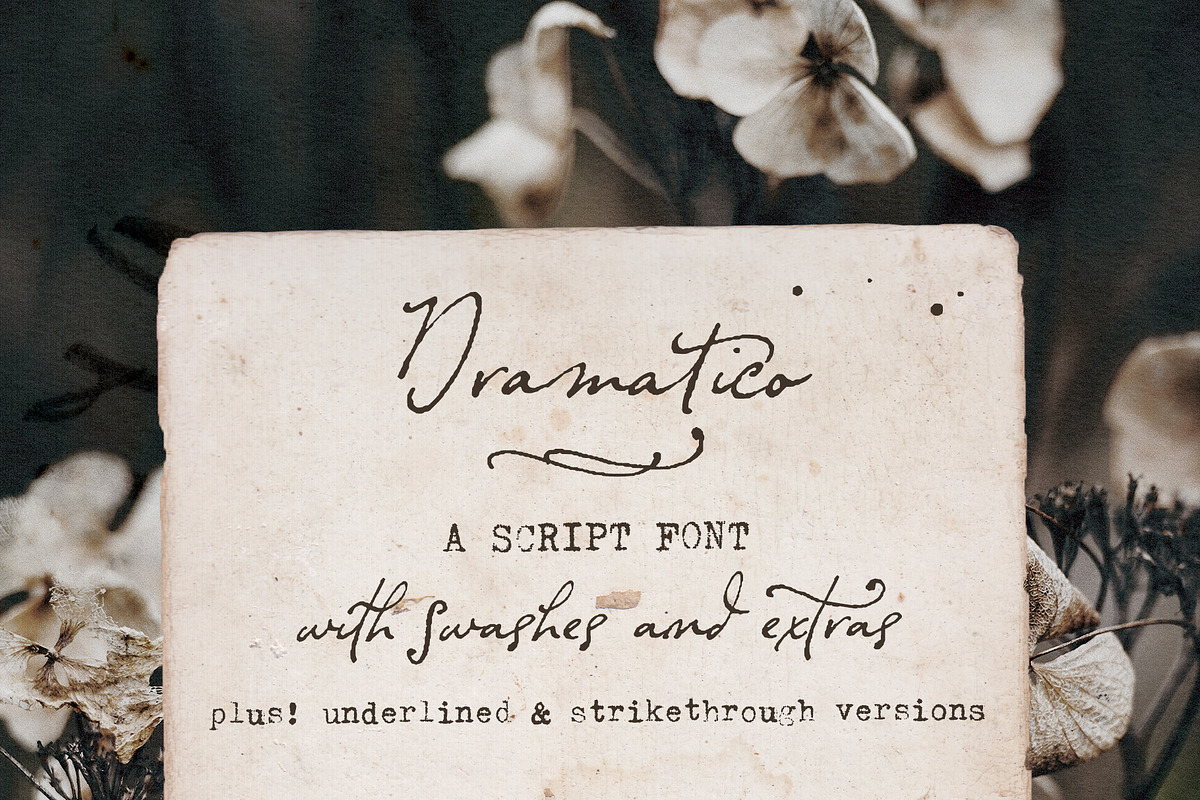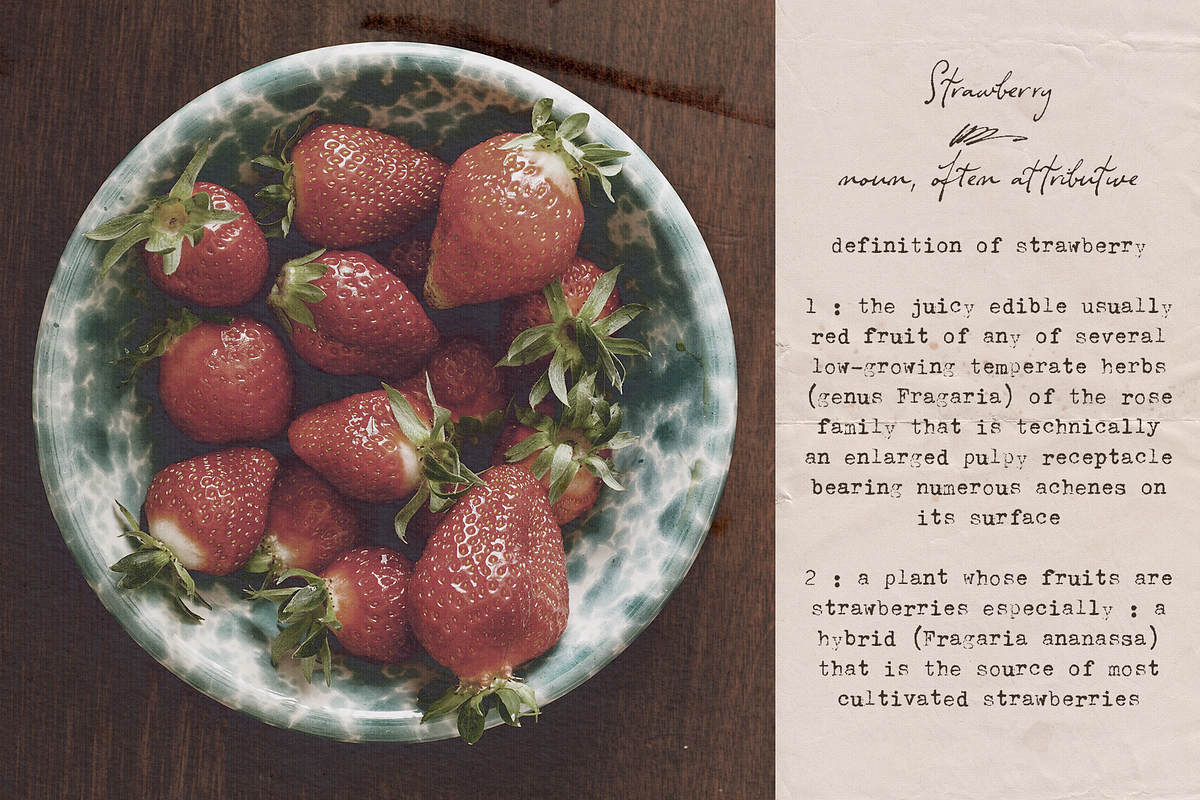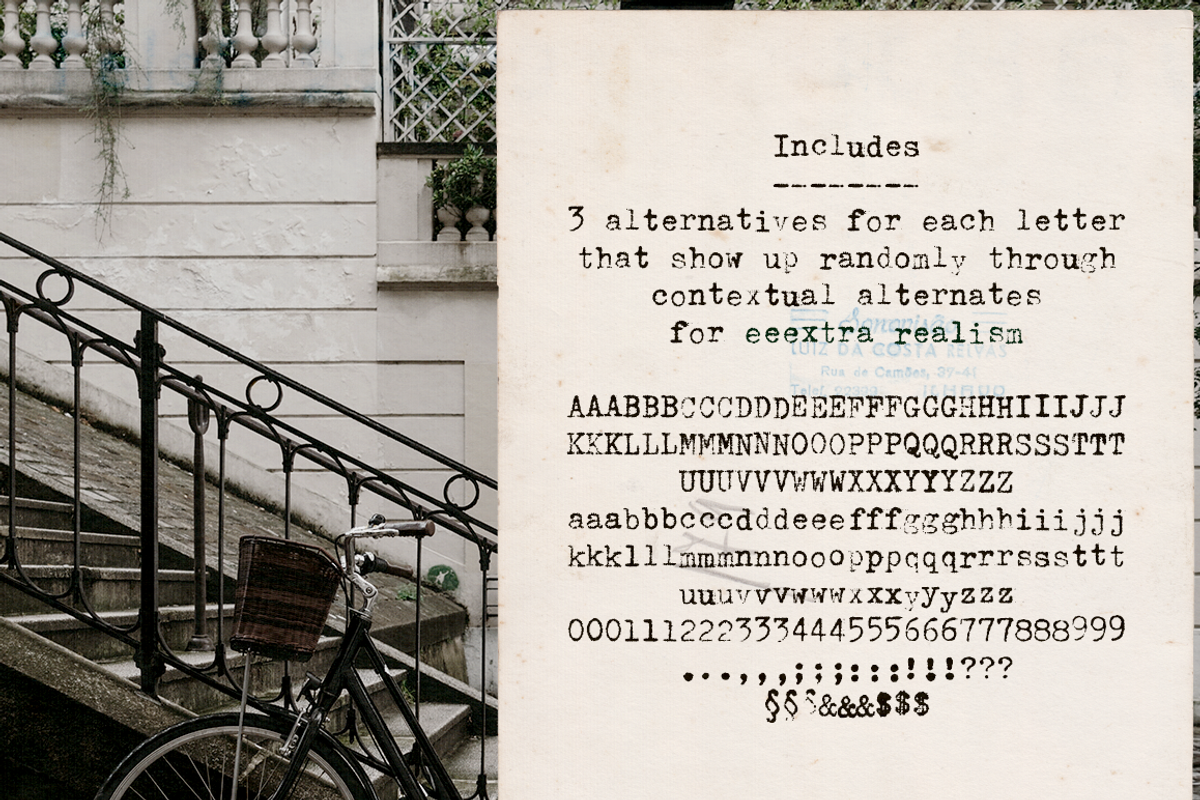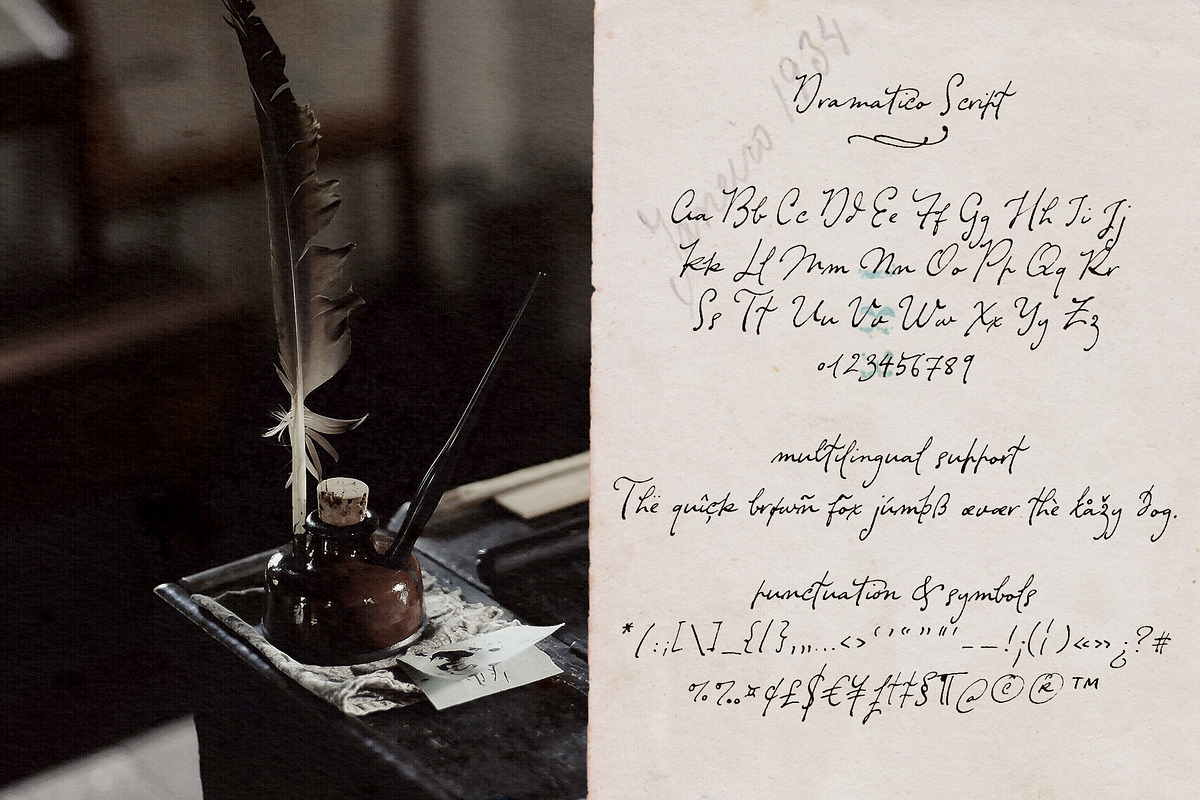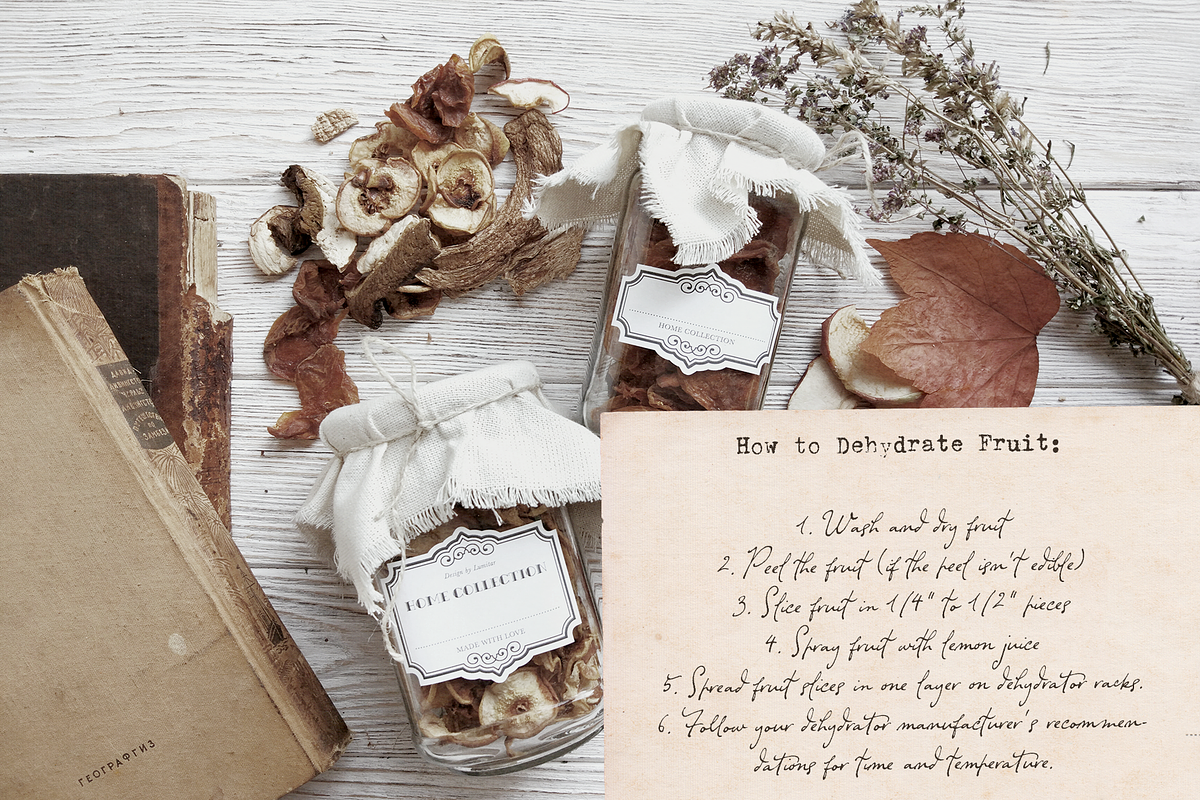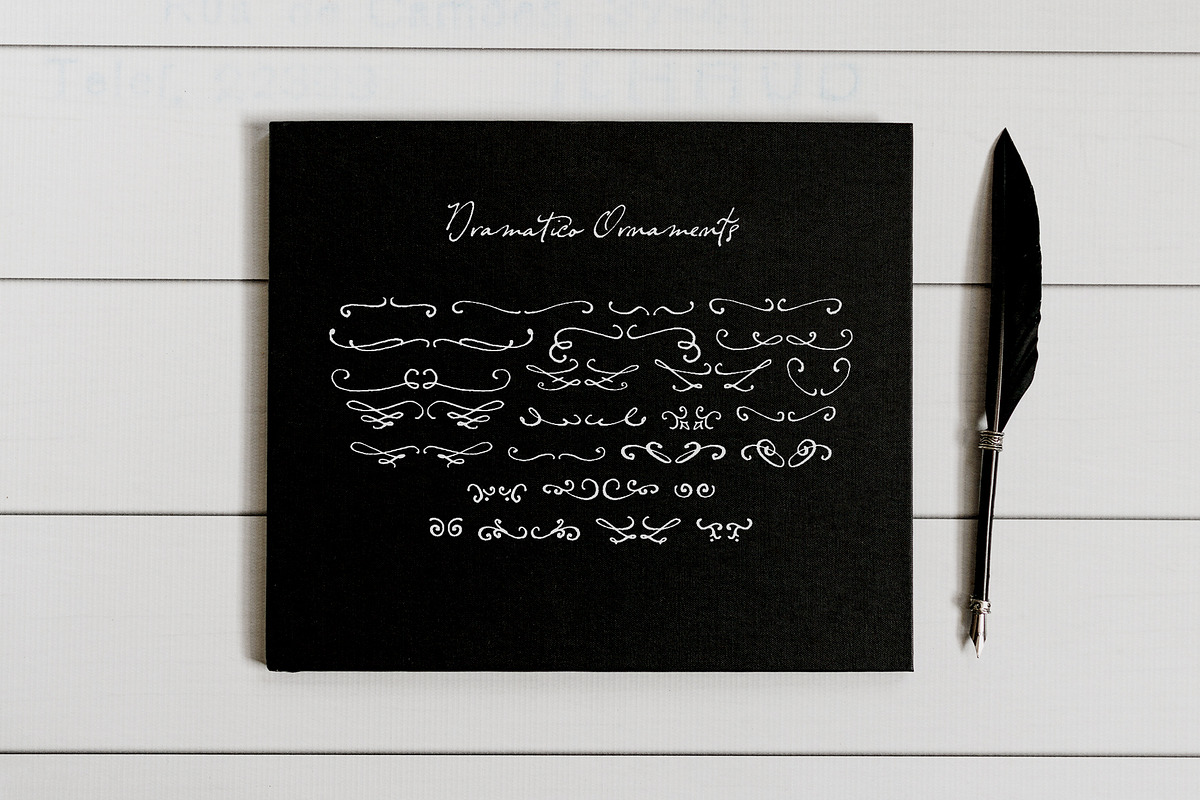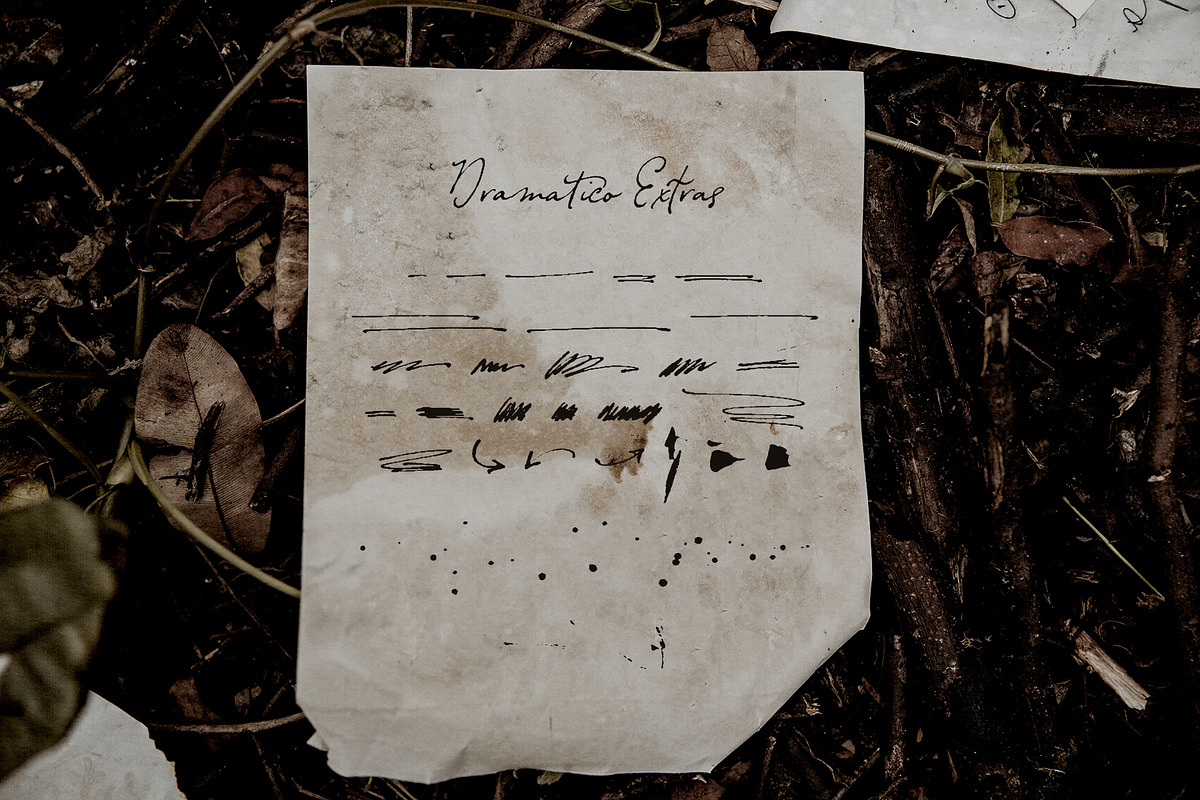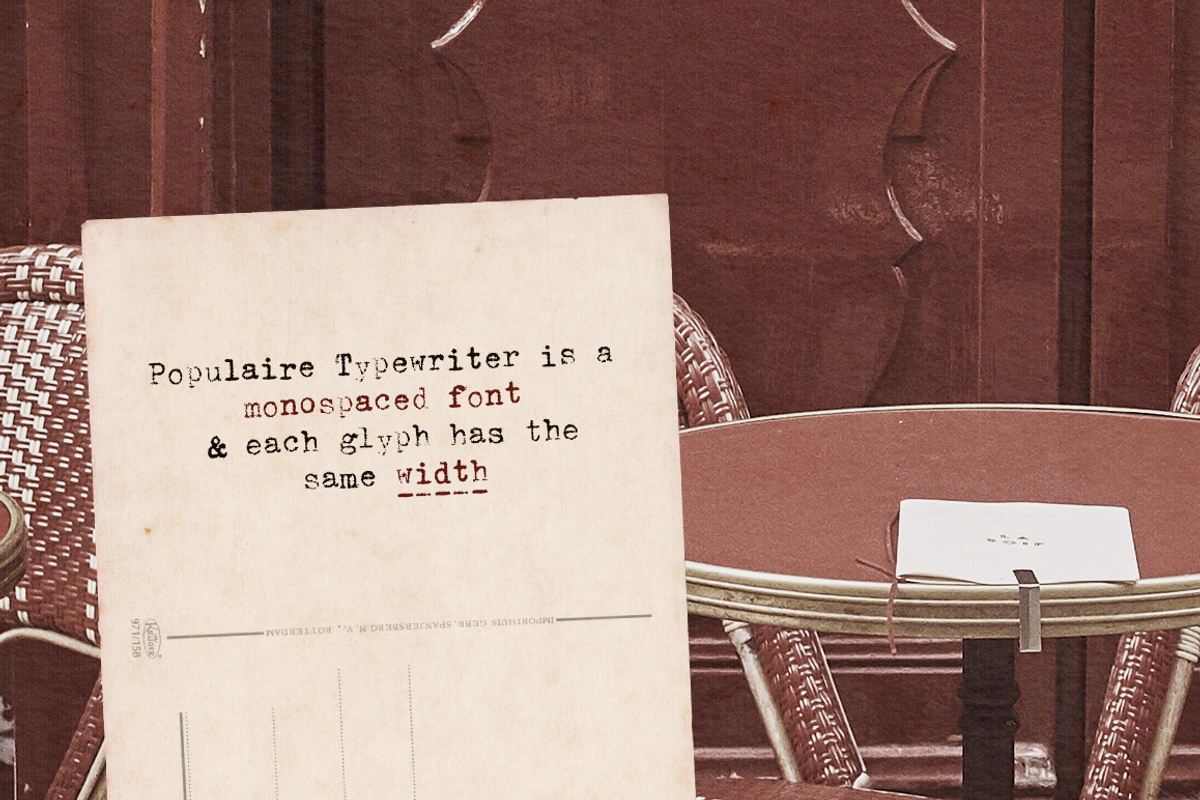
Typewriter and Script font pack
This is a pack that includes the Populaire Typewriter font and extras, and the Dramatico Script font. When I was making these fonts, I had a font duo in mind - both fonts have a textured, authentic look, and are inspired by vintage documents and postcards, and will go together beautifully. In addition to the fonts, this set also includes vintage textures and stamps (included in the original Populaire Typewriter), which will look great in any designs that needs a retro look.
Dramatico Script typeface with ligatures, swashes, a set of ornaments to decorate your text, a set of extras (lines, scribbles, arrows, splatters, etc) to add a grungier look to your vintage designs and bonus underlined and strikethrough versions of the script font.
Populaire Typewriter typeface with Regular, Dirty and Misprints fonts. The Regular and Dirty versions of the font are monospaced fonts, with three alternatives for each character that show up randomly through contextual alternates. These features make these fonts extremely realistic and fun to use!